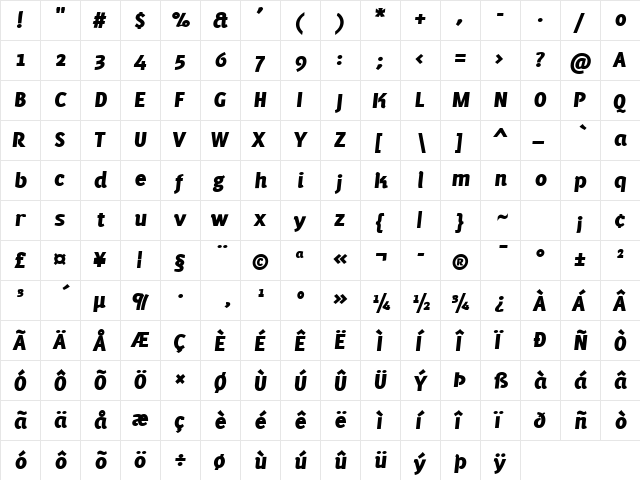
PF Muse Black Italic
Design Context for PF Muse Typeface
PF Muse is a composed and adaptable typeface that performs quietly and consistently across a wide range of design contexts. The dynamic lean of this cut emphasises speed and emphasis in any layout.
Pro Tip: Use PF Muse for emphasis, pull quotes, and subheadings where its slanted energy can add rhythm to the layout.